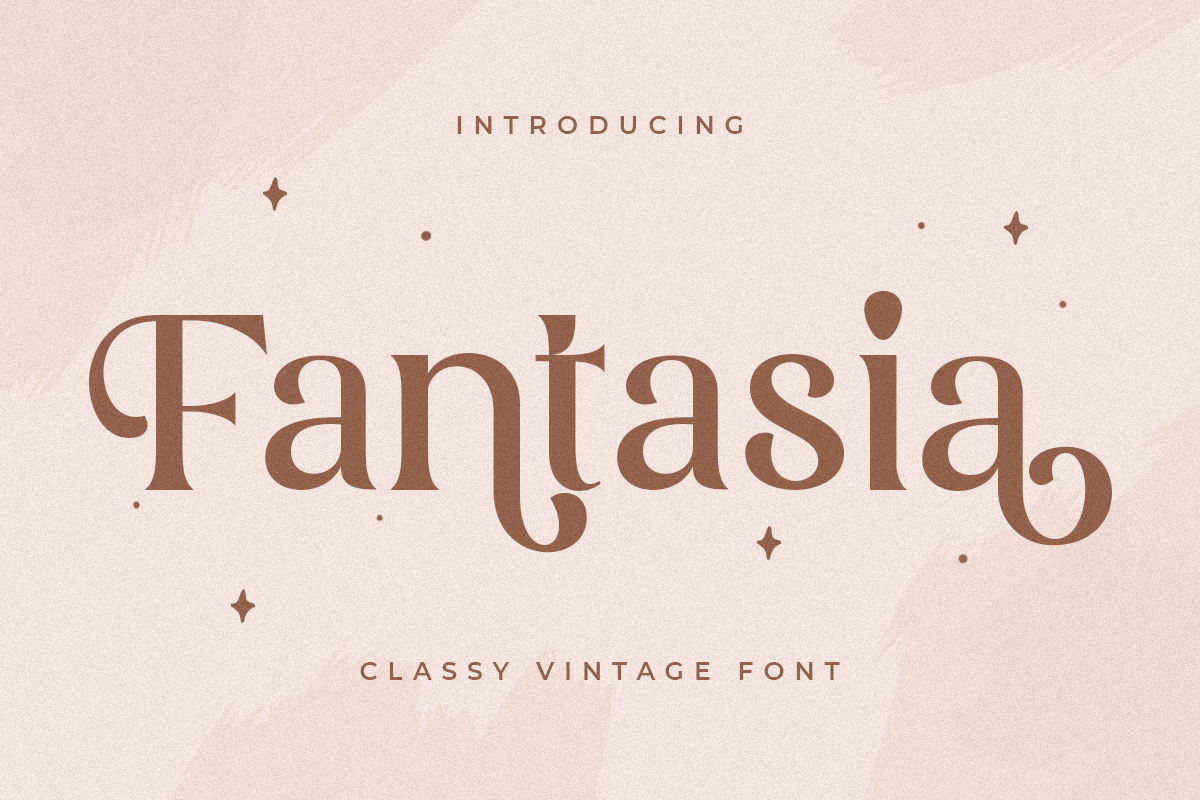
Fantasia
-Classy Vintage Font
Fantasia
New Classy serif that we created special for Vintage projects with extra ligature and alternates in unique shape will be ready to add value of your brand. It so nice to leverage designer or product owner that need solutions to make their design look more classy but vintage. And specially for this font, We prepared any ligatures and any alternate characters to help you create unlimited variations for your creative needs.